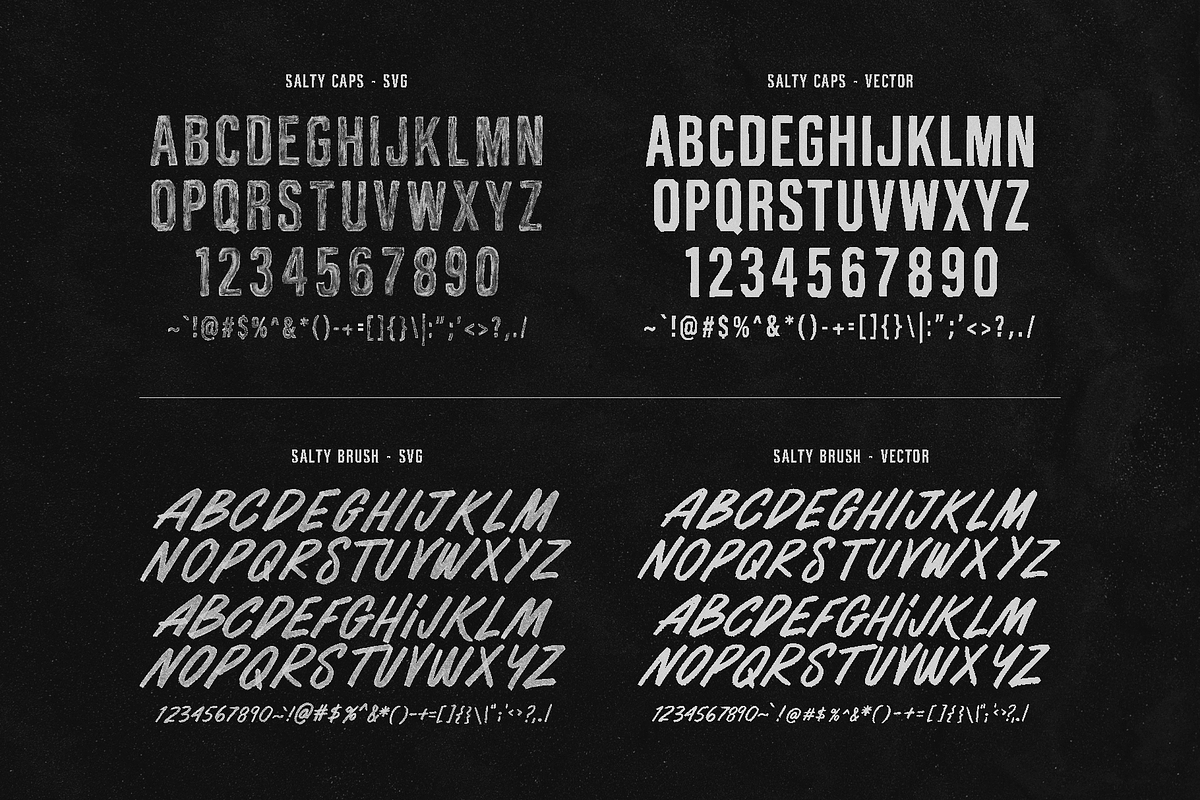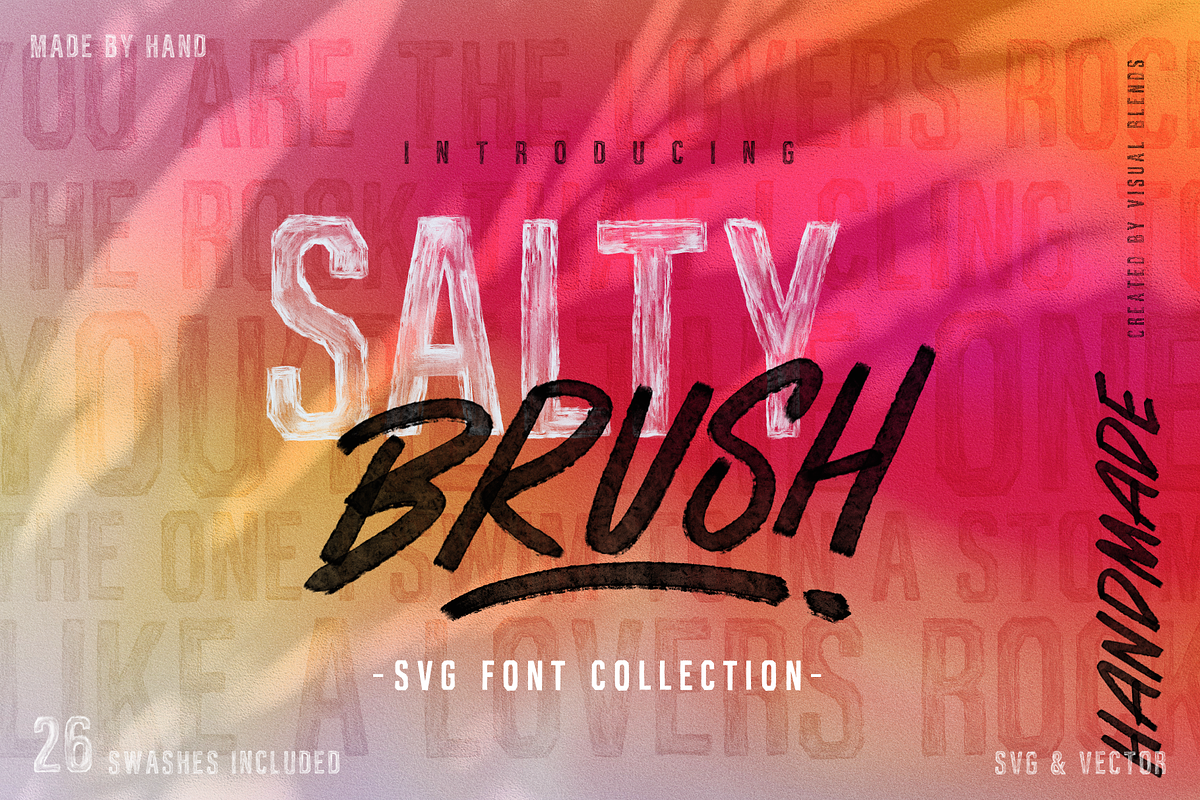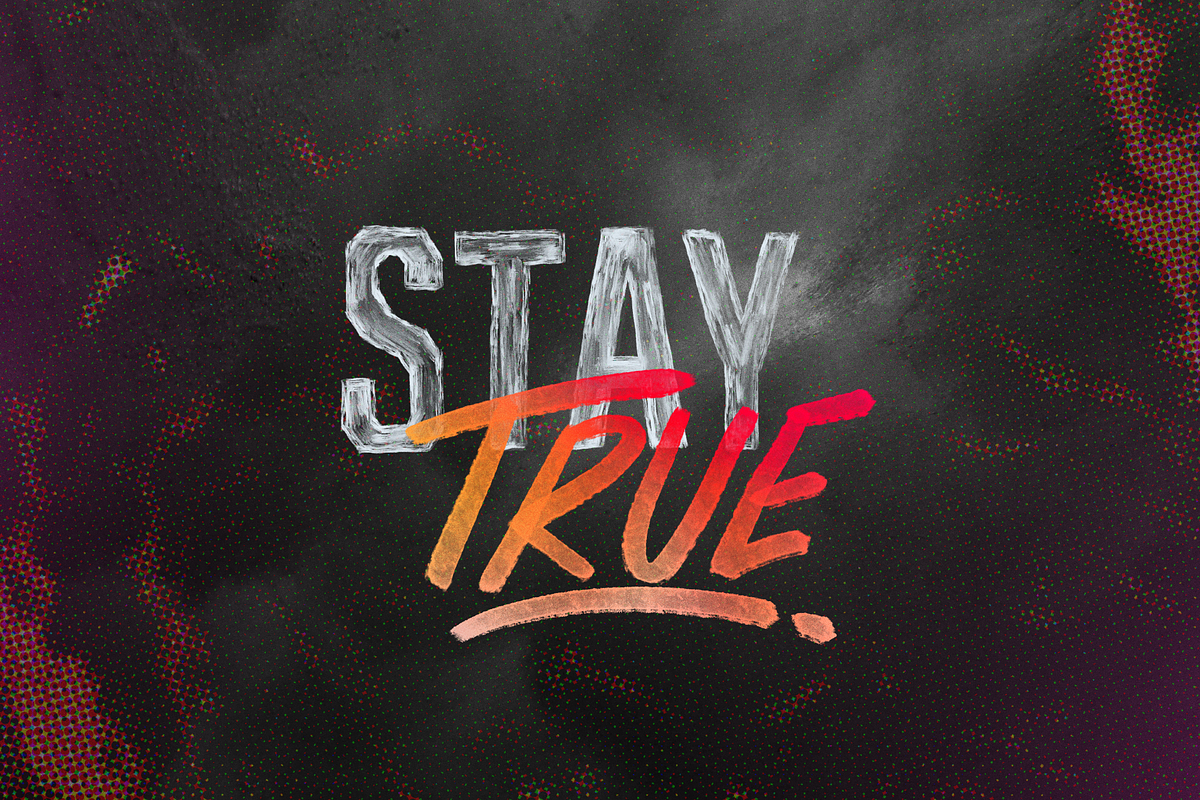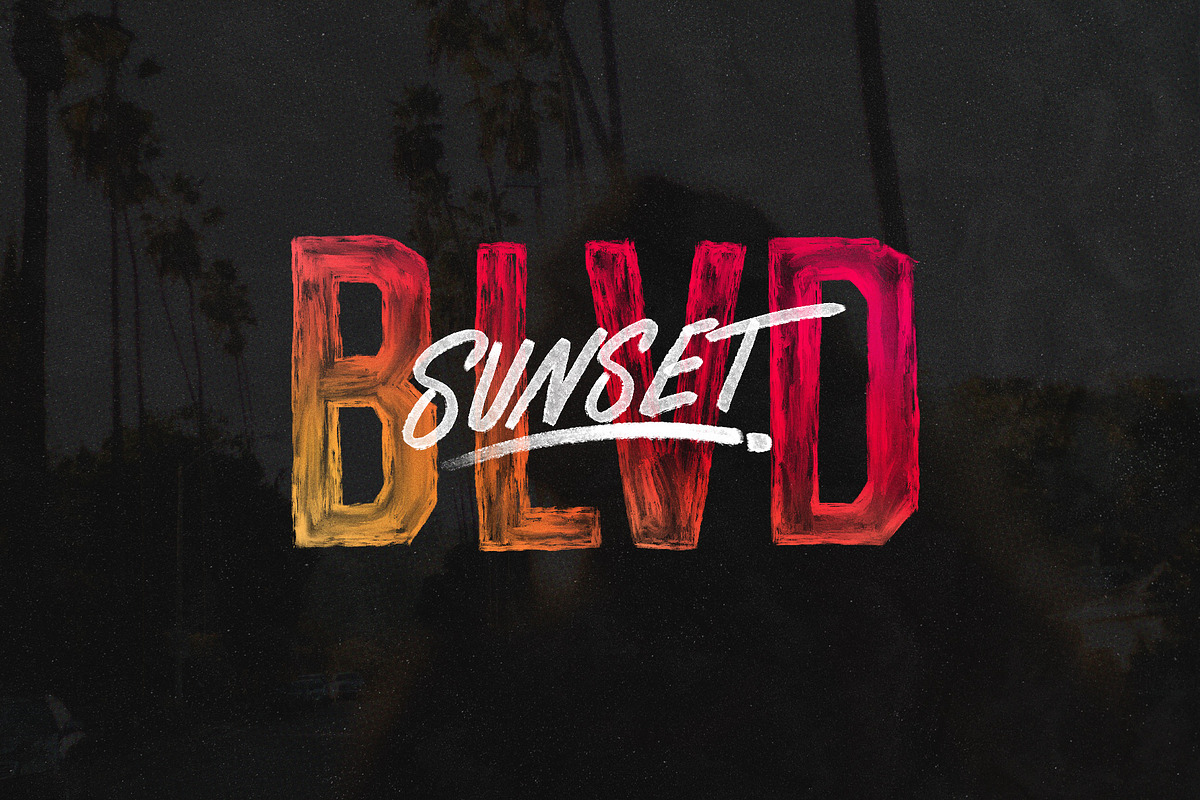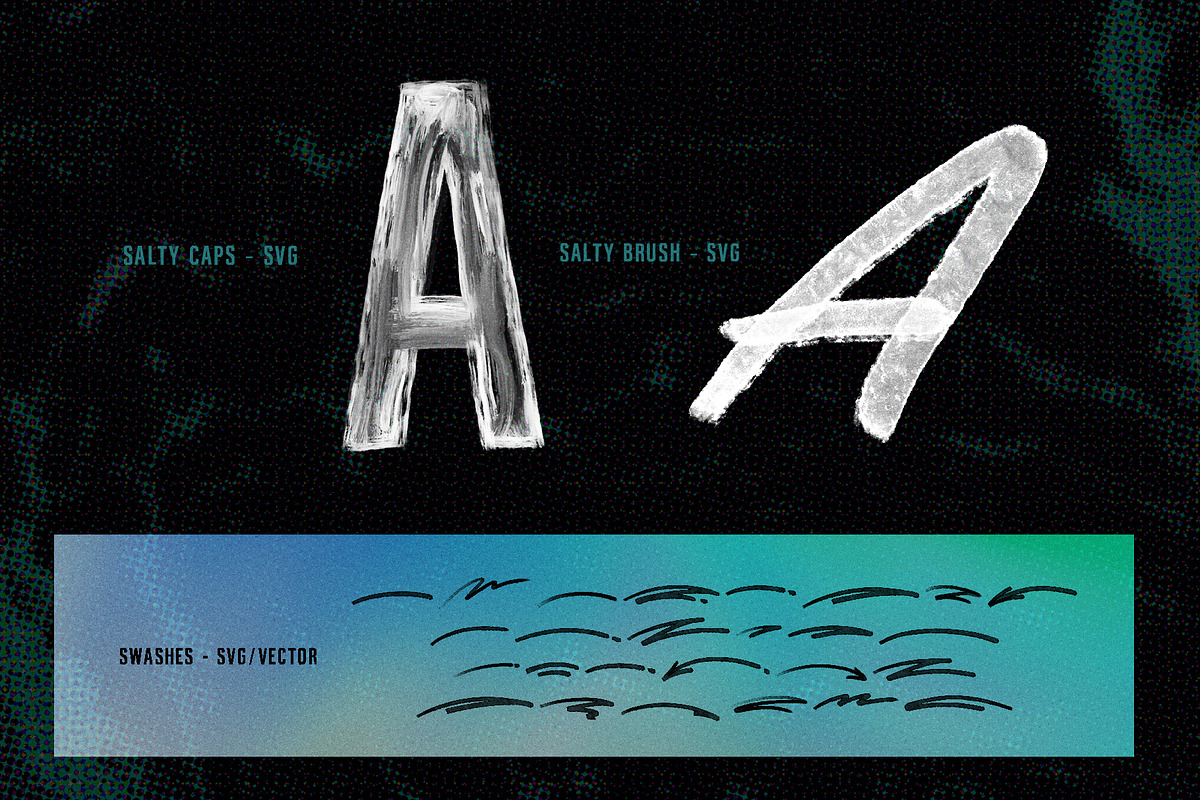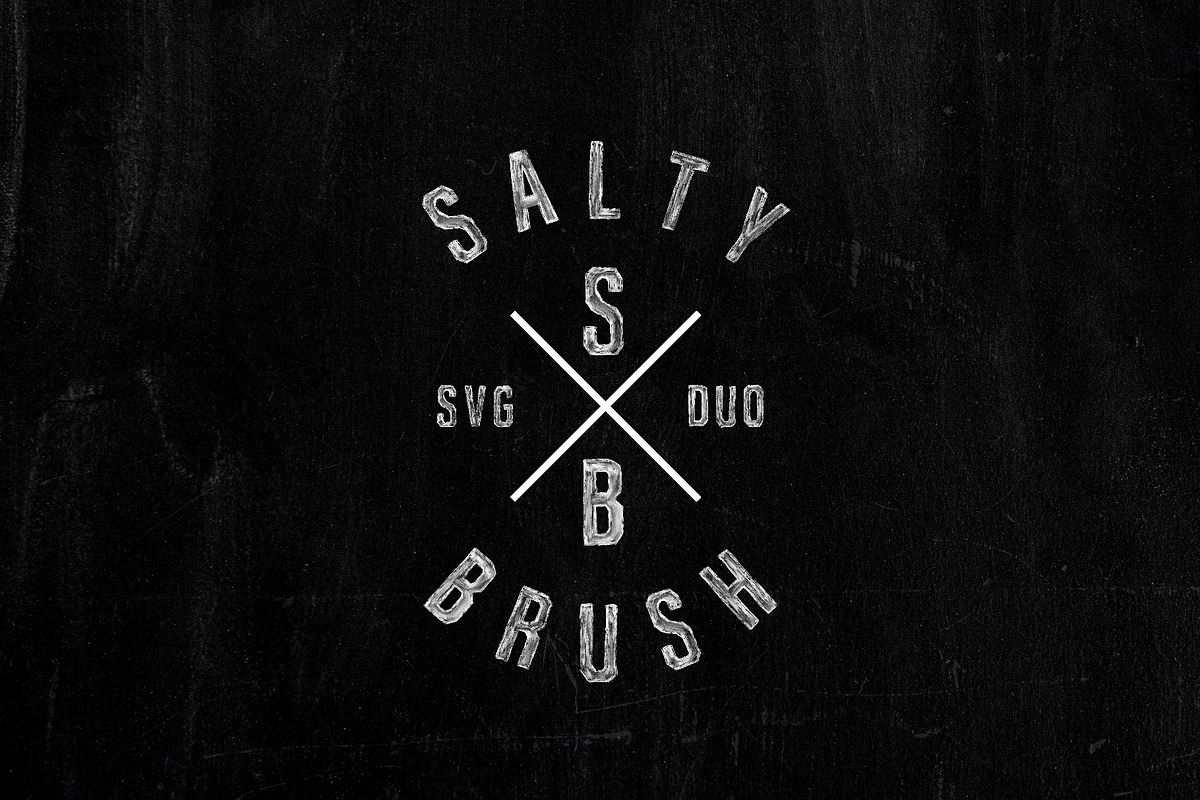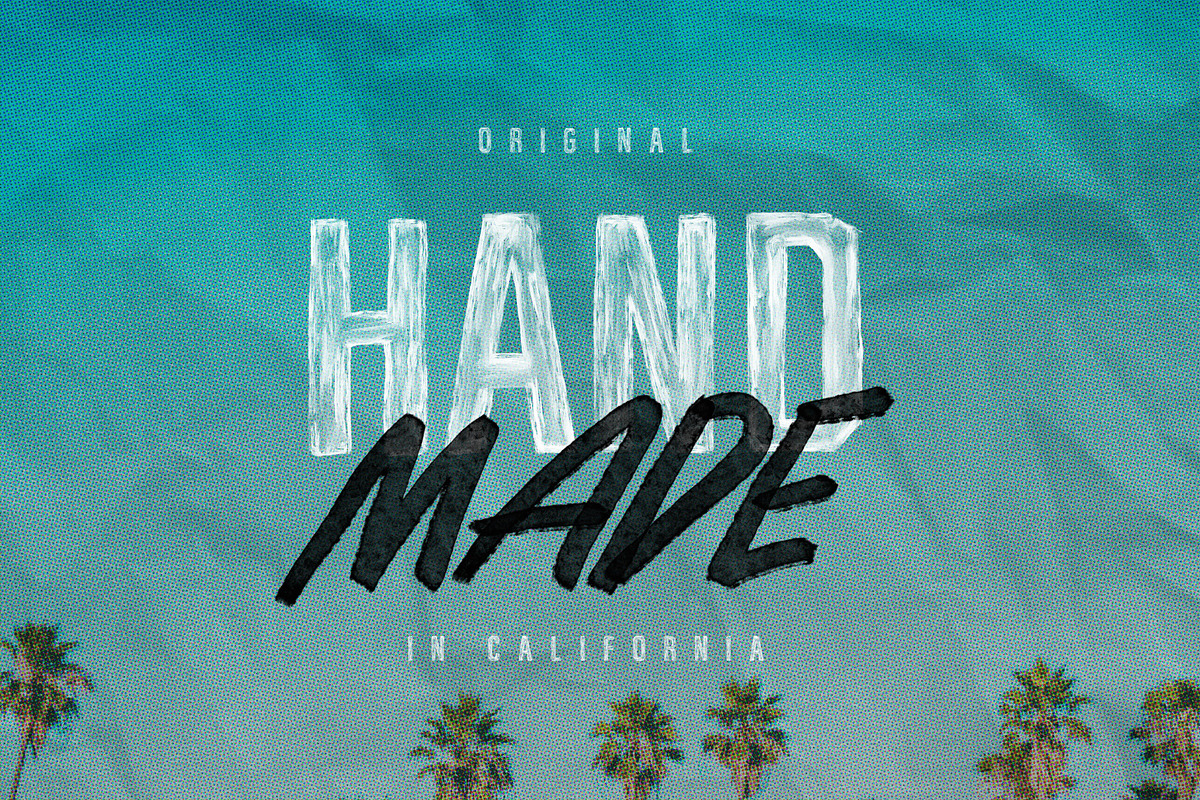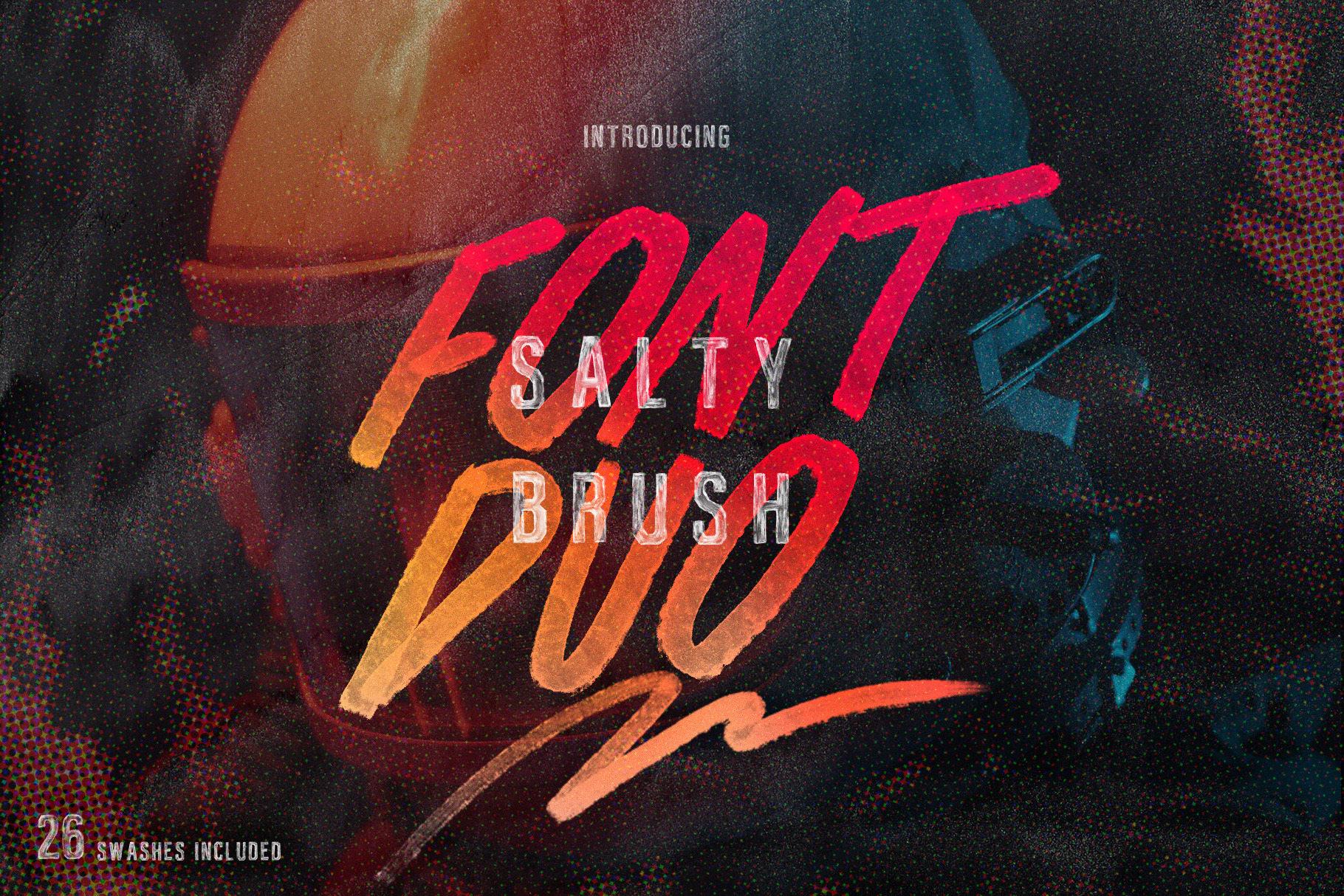
Salty Brush - SVG Font Duo
Introducing Salty Brush- SVG Font Duo a hand crafted font collection that's raw, custom and unique. Salty Brush and Salty Brush Caps have an expressive hand-painted aesthetic, which brings a human touch to any design. Using SVG, the transparent attributes really bring this typeface to life. Salty brush includes alternate characters using upper and lower case. In addition, extra initial cap glyphs can be found in the glyphs toolbar.
- Salty Brush SVG A hand brushed font loaded with transparent detail. Includes alternate characters using lower and upper case.
- Salty Brush Vector A traditional vector version that can be used universally.
- Swashes SVG Includes 26 detailed transparent brush swashes.
- Swashes Vector Includes 26 traditional vector brush swashes.
- Salty Brush Caps - SVG A hand brushed condensed display font with transparent detail.
- Salty Brush Caps - Vector A traditional vector condensed display font.